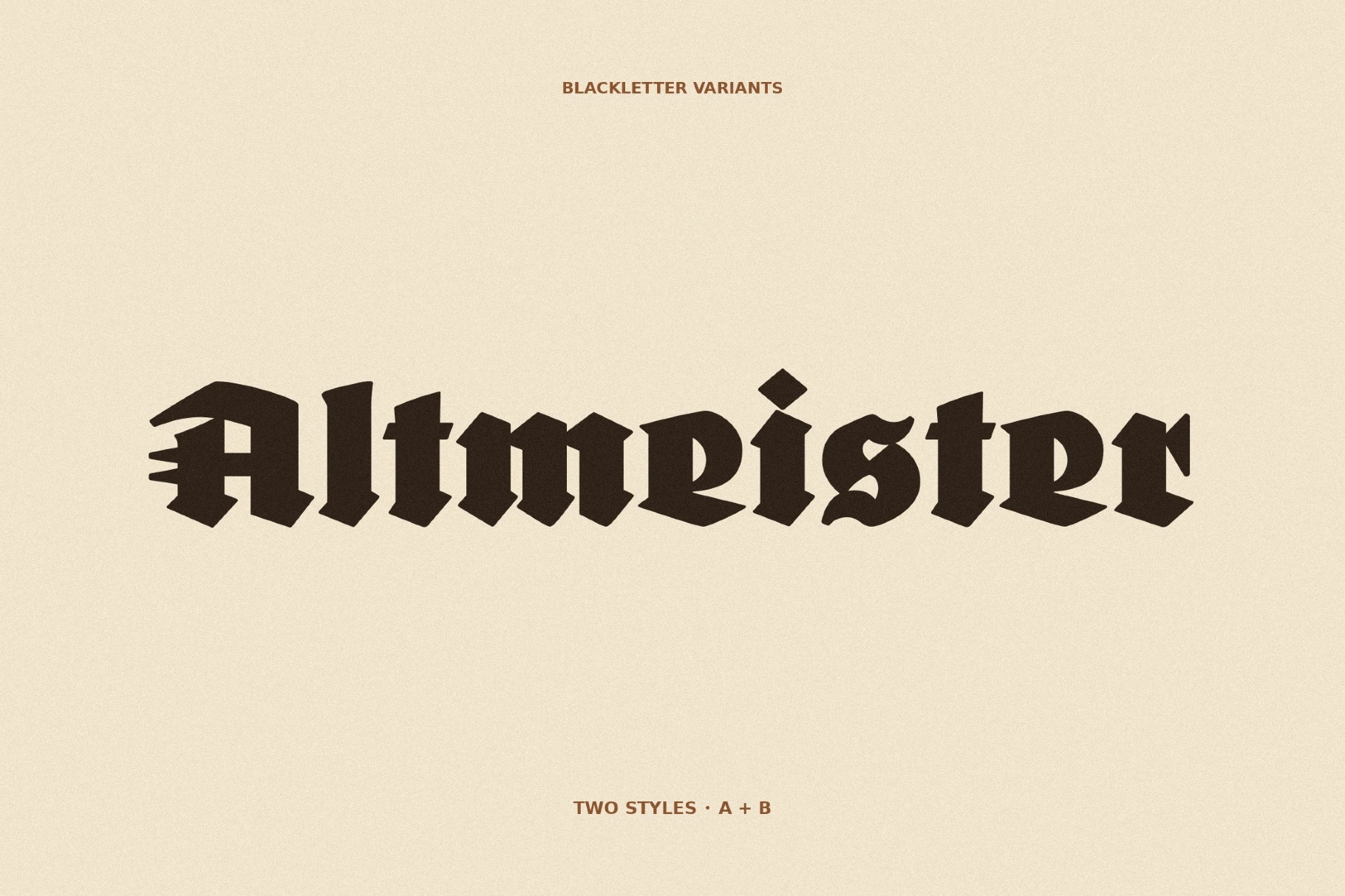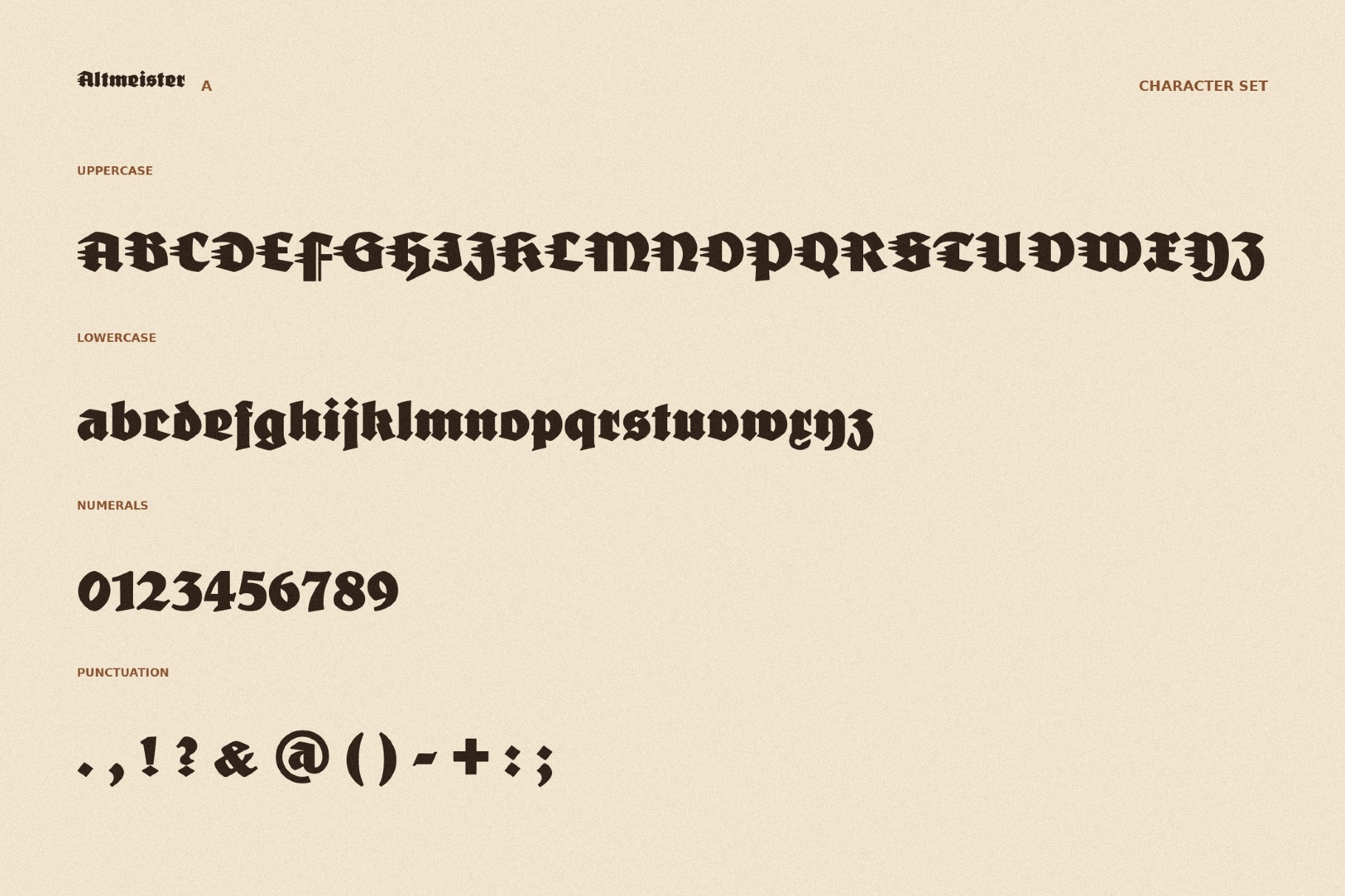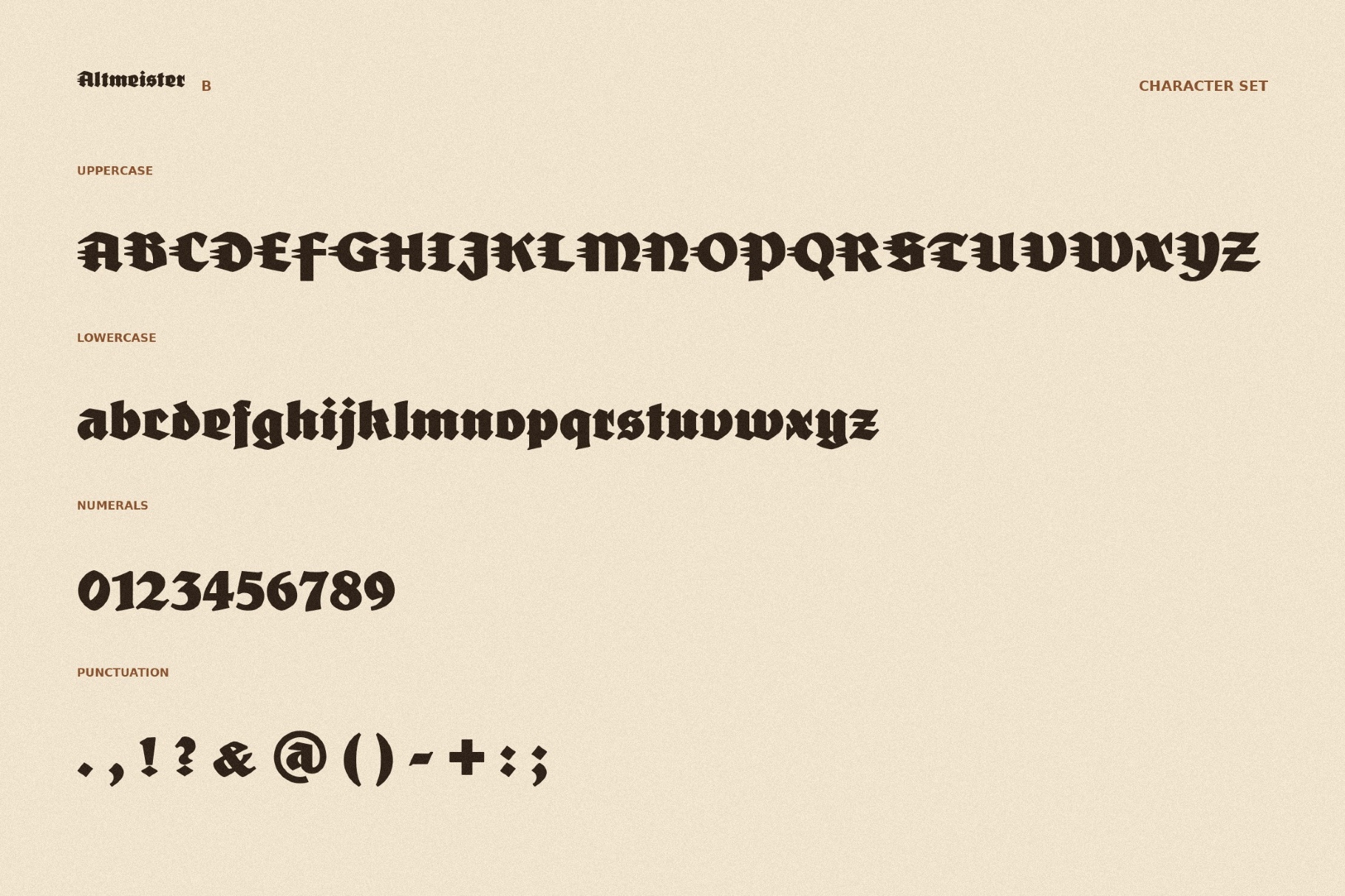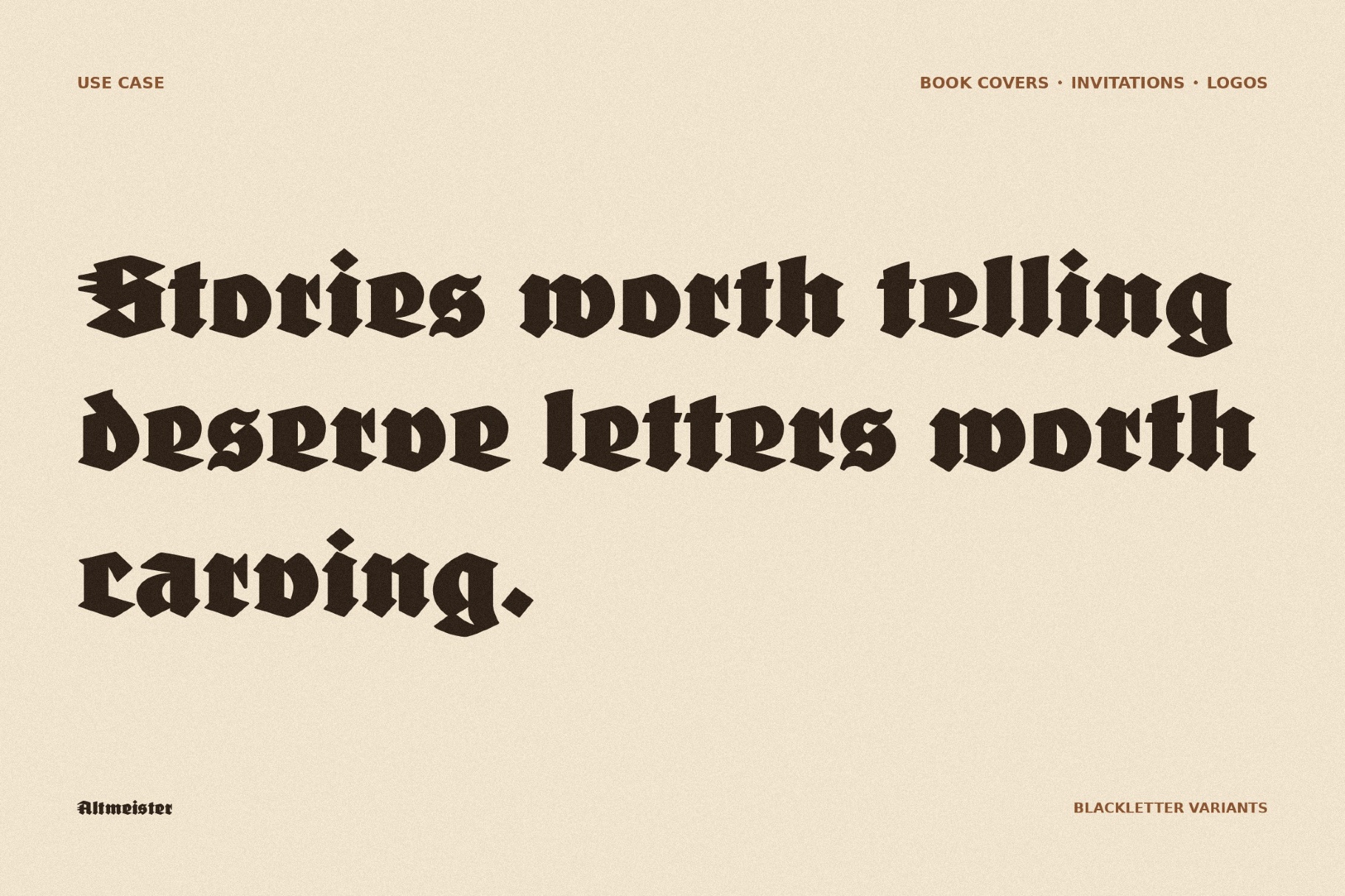
FDI Altmeister Blackletter Font
FDI Altmeister Font delivers dense blackletter power with serrated rhythm and multilingual gravitas like German Fraktur posters, old guild signs, and newspaper mastheads. When you need a bold, traditional mood, you can use its commanding historic texture for brewery packaging, festival posters, tattoo graphics, heritage identities, album covers, book titles, apparel prints, event branding, and merch systems.
- uppercase and lowercase letters;
- numbers, punctuation, dingbats, and symbols;
- multilingual support across the extended Latin script;
- ligatures.